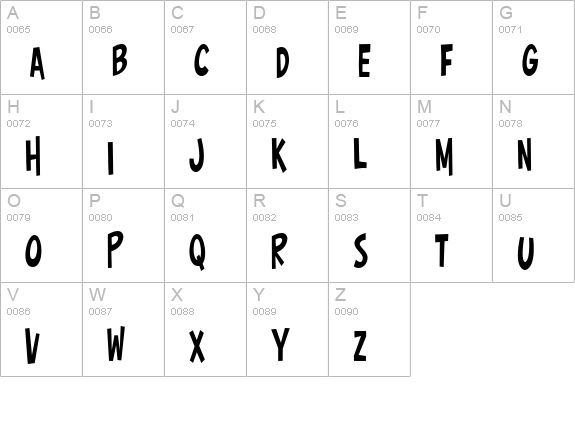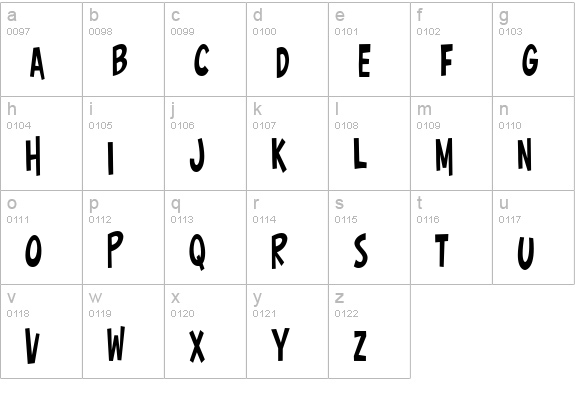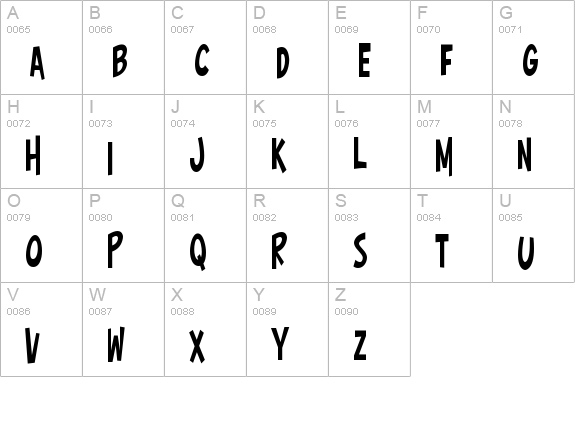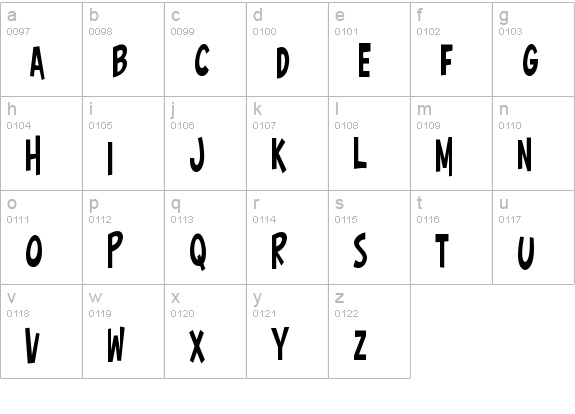
Surfer Shop BTN Cond is a distinctive, condensed-width variant in the Surfer typeface family \xE2\x80\x94 well suited to design and typography projects.
Surfer Shop BTN Cond font is a stylish and modern typeface that exudes a sense of adventure and fun. With its condensed style and bold, dynamic characters, this font is perfect for creating eye-catching designs for surf-related projects, summer events, or any other design that needs a touch of youthful energy. What sets Surfer Shop BTN Cond font apart is that it is available for free download at FontsMarket.com. This means that you can easily access and use this fantastic font in your projects without any cost. Whether you're designing a poster for a beach party, creating branding materials for a surf shop, or working on a website for a coastal destination, Surfer Shop BTN Cond font will help you achieve a cool and energetic look effortlessly. Embrace the carefree spirit of the surf culture with Surfer Shop BTN Cond font and let your designs make a splash!